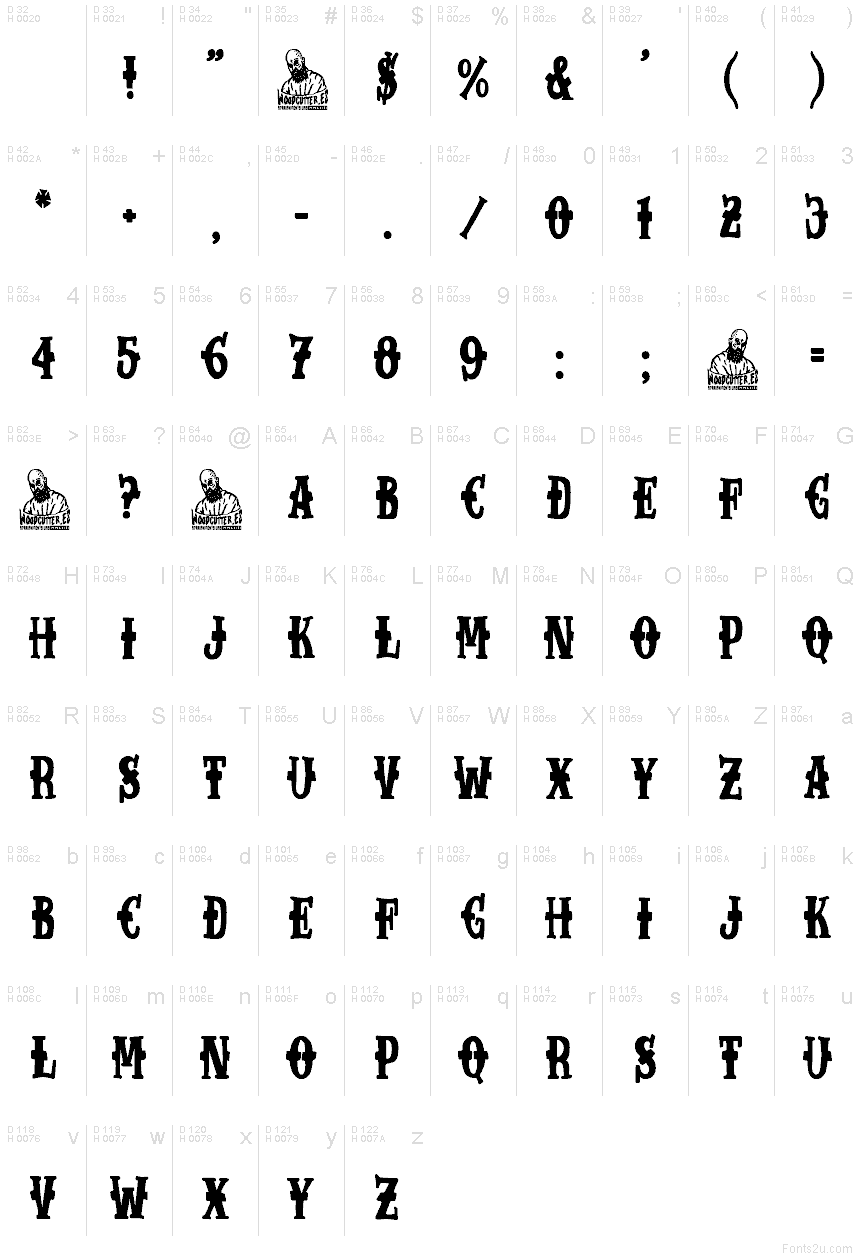
Extreme Cowboy
Extreme Cowboy font by Woodcutter is a display typeface inspired by Western themes. With its rugged appearance and condensed structure, it evokes the essence of old Western typography in a decorative, theatrical style. The font’s ornamental elements make it look vintage and adventurous at the same time making it great for impressive typographic designs.